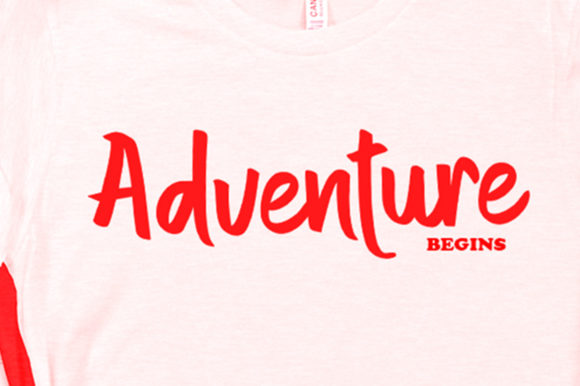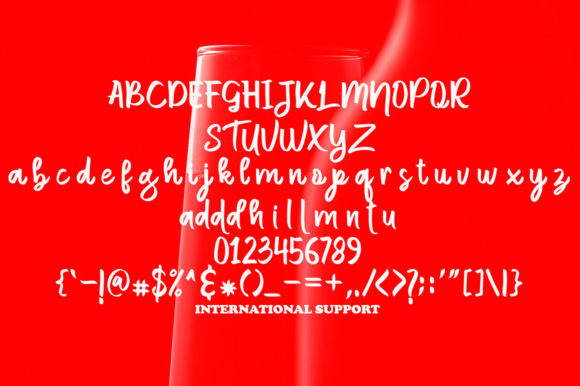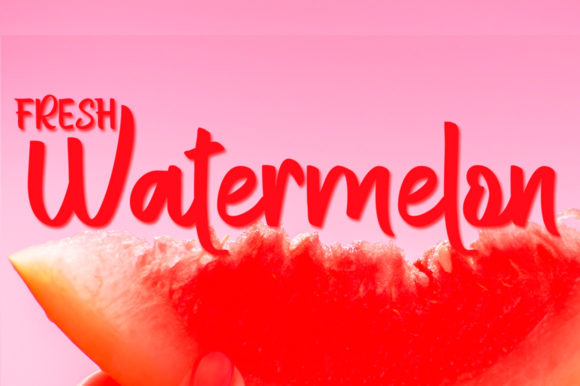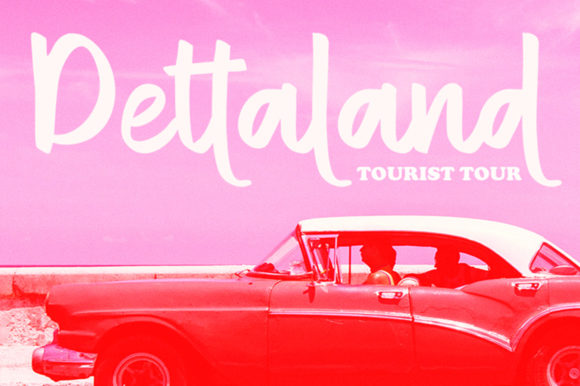
Dellina Font: Elevate Your Designs with a Cool, Brushed, and Trendy Handwritten Style
In the world of typography, fonts play a crucial role in conveying the tone and personality of a design. For designers and crafters looking to add a touch of style and sophistication to their projects, the Dellina font is an excellent choice. This cool, brushed, and trendy handwritten font is designed to make a statement, reading as strong, confident, and dynamic.
What is Dellina Font?
Dellina font is a modern, handwritten typeface that boasts a unique, brushed look. Its distinctive style is perfect for designers who want to add a personal touch to their work. The font’s strong and confident appearance makes it ideal for a wide range of design projects, from logos and branding materials to social media graphics and website headers.
Key Features of Dellina Font
- Cool and Trendy: Dellina font is a stylish and contemporary typeface that will elevate your designs and make them stand out.
- Brushed Look: The font’s brushed appearance gives it a unique, hand-crafted feel that’s perfect for designers looking for a more personal touch.
- Strong and Confident: Dellina font exudes confidence and strength, making it ideal for designs that require a bold and assertive look.
- Dynamic: The font’s dynamic style makes it perfect for designs that require movement and energy.
Uses of Dellina Font
Dellina font is versatile and can be used for a wide range of design projects, including:
- Logos and Branding: The font’s strong and confident appearance makes it perfect for logos and branding materials.
- Social Media Graphics: Dellina font is ideal for social media graphics, including Facebook posts, Instagram stories, and Twitter headers.
- Website Headers: The font’s dynamic style makes it perfect for website headers and titles.
- Advertising: Dellina font can be used for advertising materials, including billboards, flyers, and brochures.
Why Choose Dellina Font?
There are many reasons why designers and crafters should choose Dellina font for their projects. Here are a few:
- Unique Style: Dellina font has a unique, brushed look that’s unlike any other font.
- Easy to Read: The font is easy to read, even at small sizes, making it perfect for body text and captions.
- Customizable: Dellina font can be customized to fit your design needs, including adjusting the font size, color, and style.
- Time-Saving: The font is pre-designed, saving you time and effort in creating your own custom font.
Tips for Using Dellina Font
Here are a few tips for using Dellina font in your designs:
- Use it as a Statement Font: Dellina font is perfect for making a statement, so use it as a headline or title font.
- Pair it with Other Fonts: The font pairs well with other fonts, so experiment with different combinations to find the perfect look.
- Adjust the Font Size: Adjust the font size to create visual interest and hierarchy in your design.
- Experiment with Colors: The font looks great in a variety of colors, so experiment with different colors to find the perfect look.
In conclusion, Dellina font is a cool, brushed, and trendy handwritten font that’s perfect for designers and crafters looking to add a touch of style and sophistication to their projects. Its strong and confident appearance makes it ideal for a wide range of design projects, from logos and branding materials to social media graphics and website headers. With its unique style, ease of use, and customizability, Dellina font is a great choice for anyone looking to elevate their designs.